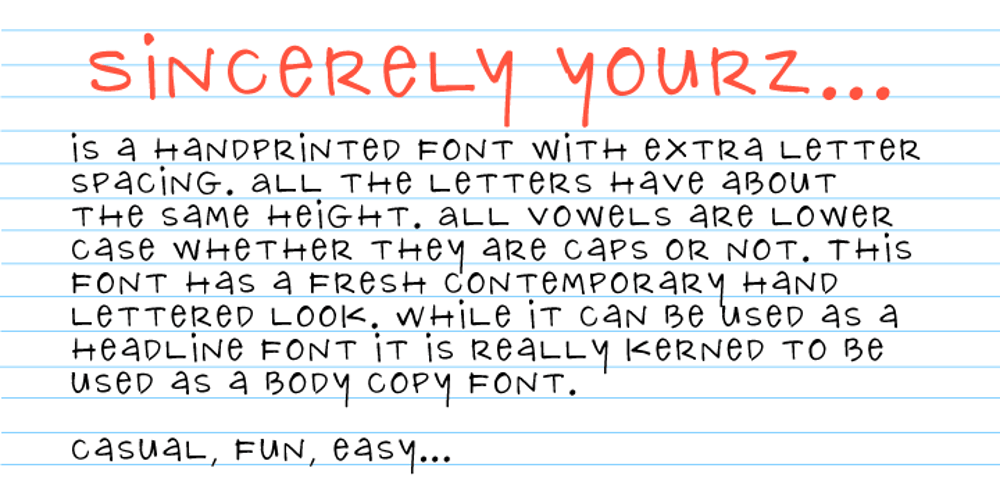
Sincerely Yourz
Sincerely Yourz font
Sincerely Yourz Font Family was designed by Rae Kaiser and published by Outside the Line. Sincerely Yourz contains 1 styles and family package options. Sincerely Yourz is another font in the Love Letters series from Outside the Line. It is a hand-printed font with extra letter spacing. All the letters have about the same height. All vowels are lower case whether they are caps or not. This font has a fresh contemporary hand-lettered look. While it can be used as a headline font it is really designed for body copy.